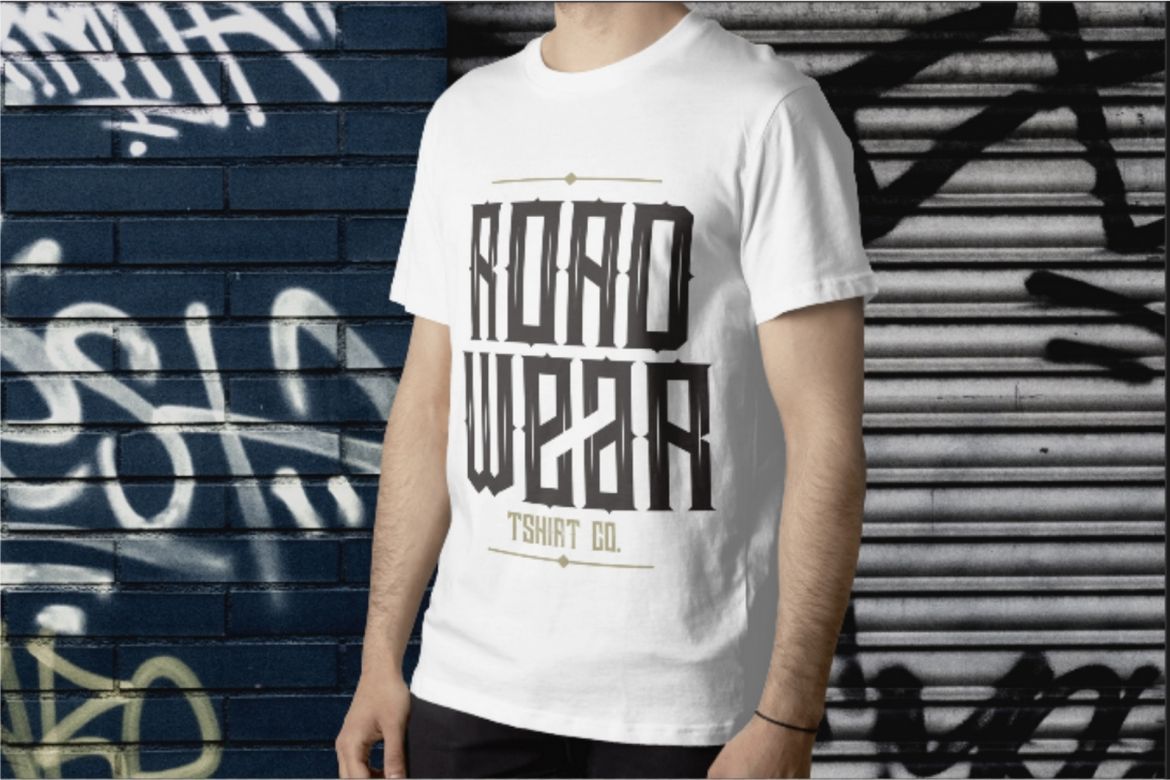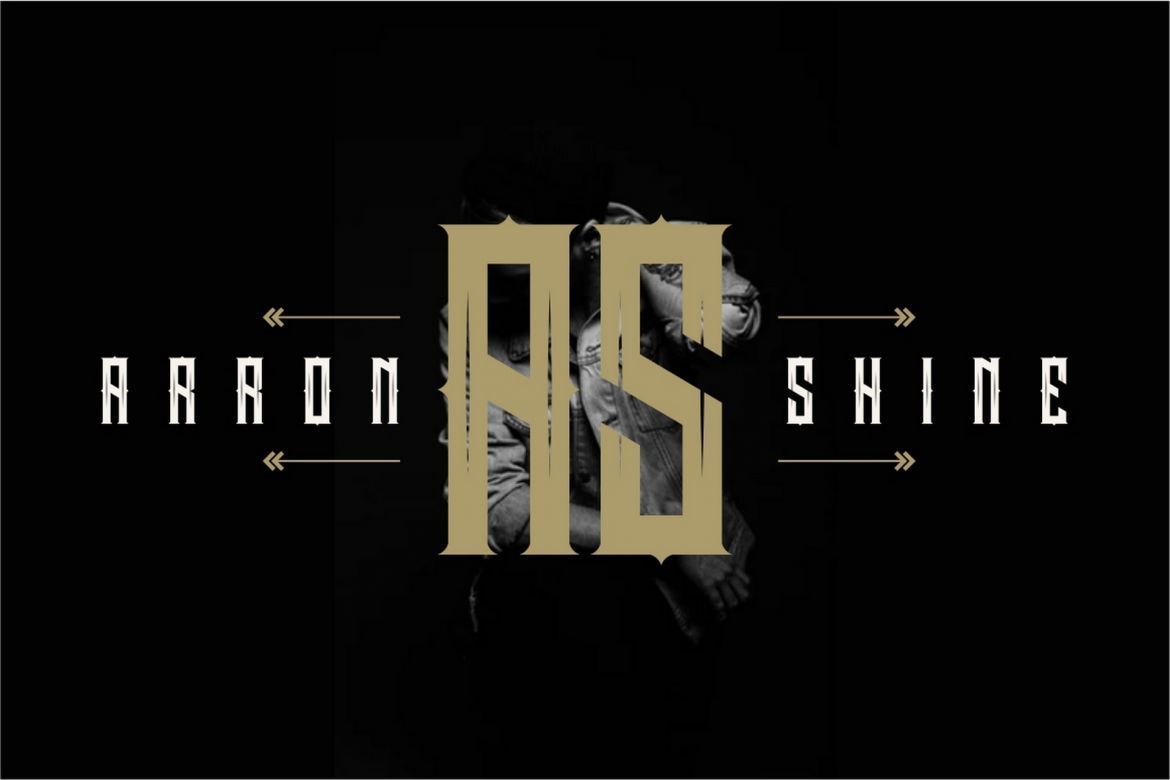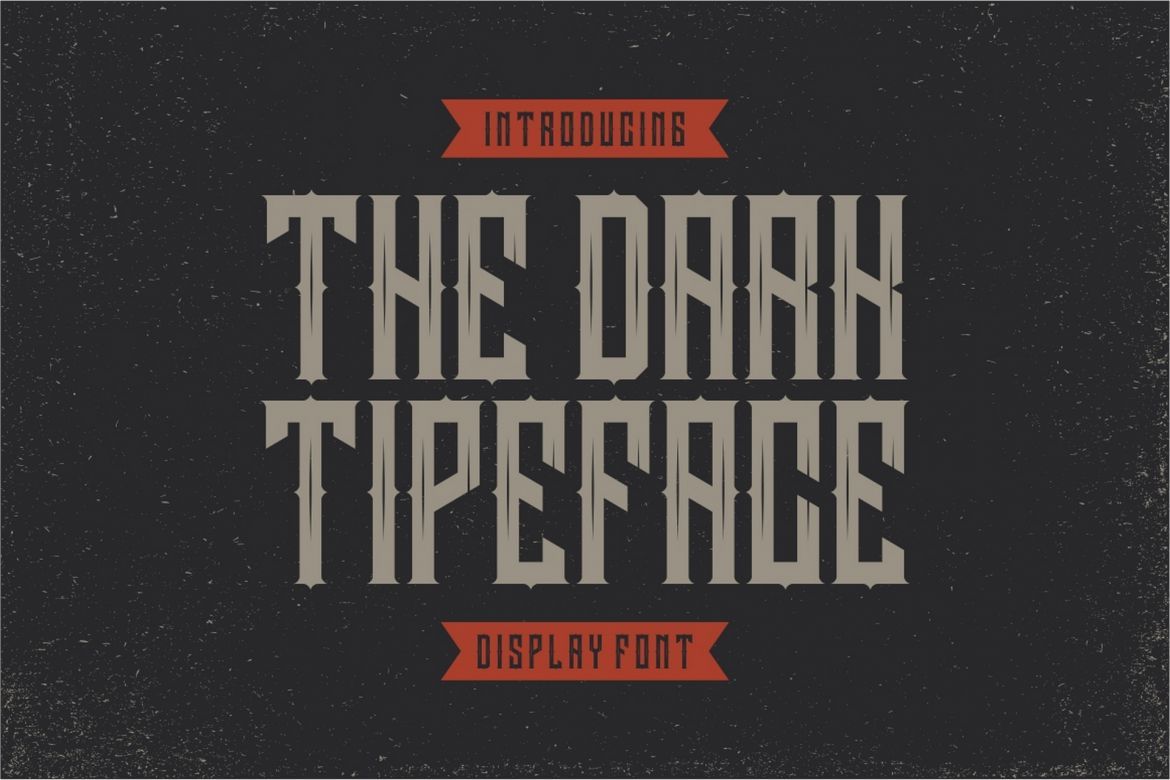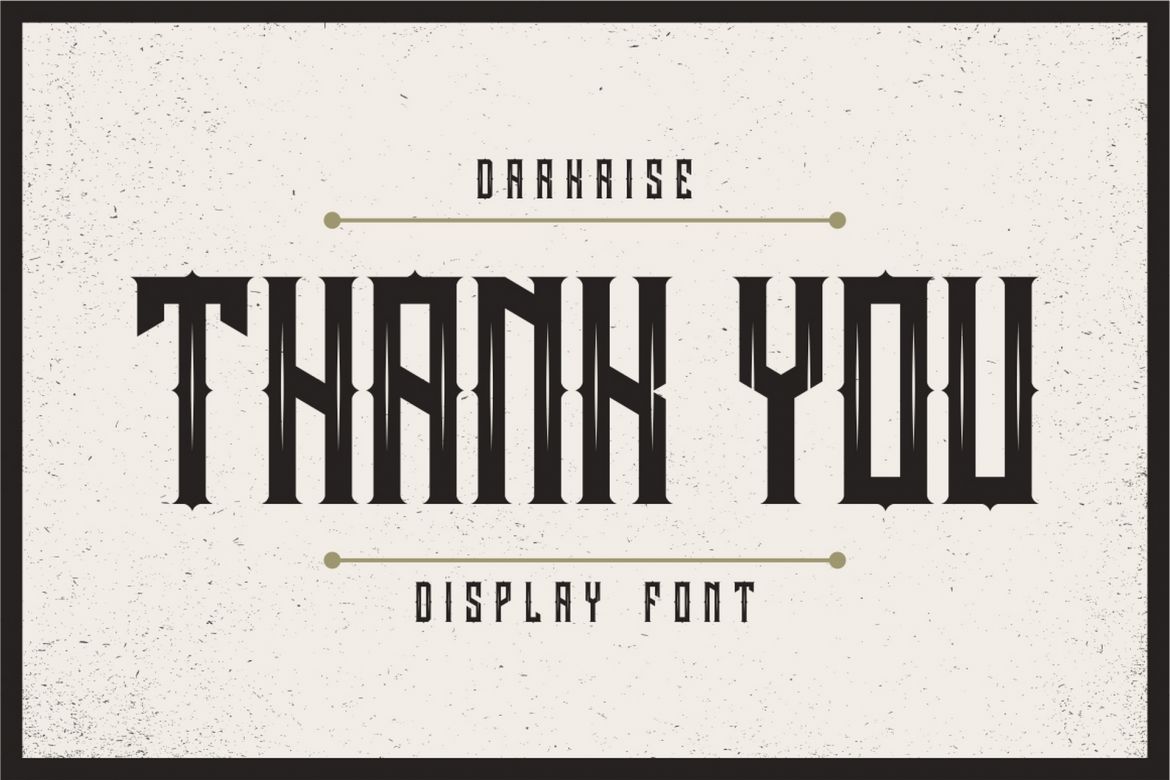
Darkrise Display Font
DARKRISE inspired by some classic typeface and biker style with sharp edge. Dynamic, metal and bold, This typeface is great for logos, tittle, headline, label, tshirt, poster, etc.